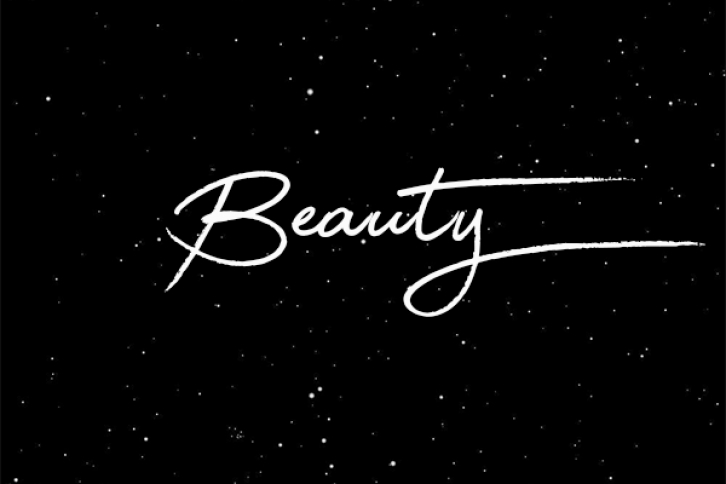
Beauty is the best choice for creating eye catching logos, branding and quotes. Every letter has a unique and beautiful touch, which will make your designs come alive!